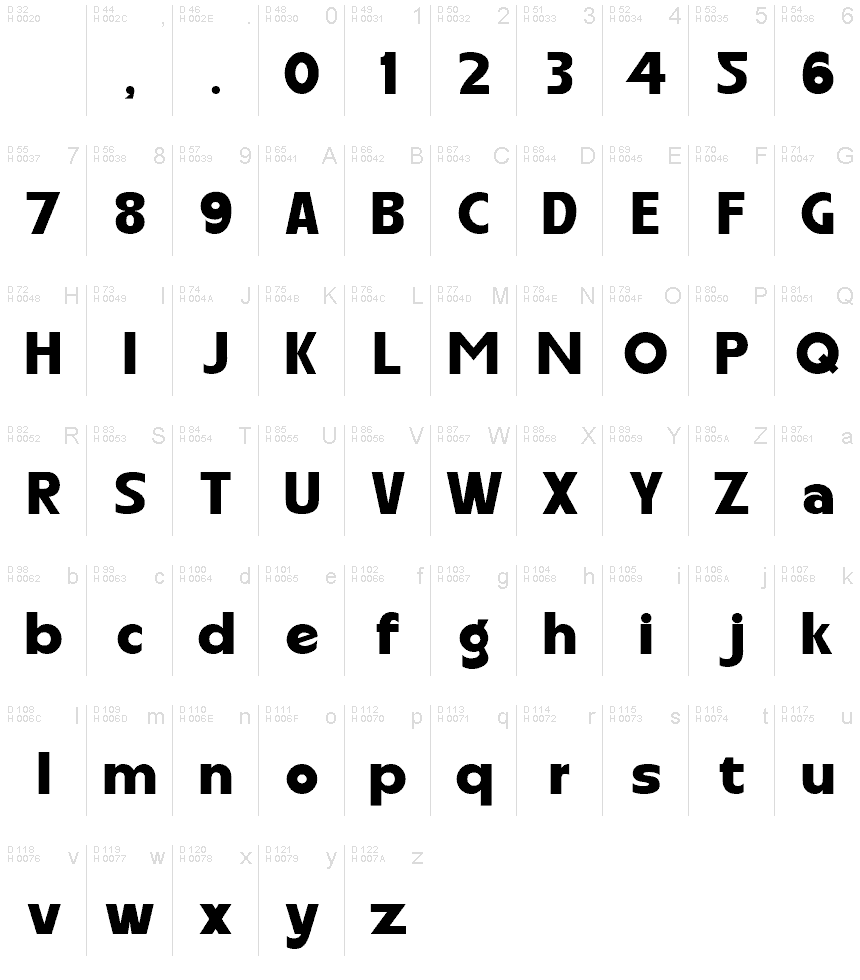
Carltine Extra Bold
Carltine Extra Bold font by Muksal Creative is a geometric, sans-serif typeface that embraces modernity with its clean, minimalistic design. Its sleek, professional appearance makes it an eye-catching choice for adding strong impact to written content. The free bold display font will convey your message efficiently using its distinctive letter shapes.
Carltine Extra Bold font can successfully serve designers and writers seeking special fonts for advertising banners, catalogs, headers and titles for manuscripts or articles on websites/magazines/newspapers. It can be used on greeting cards’ cover designs too as well as promotional branding materials like brochures or flyers among others.